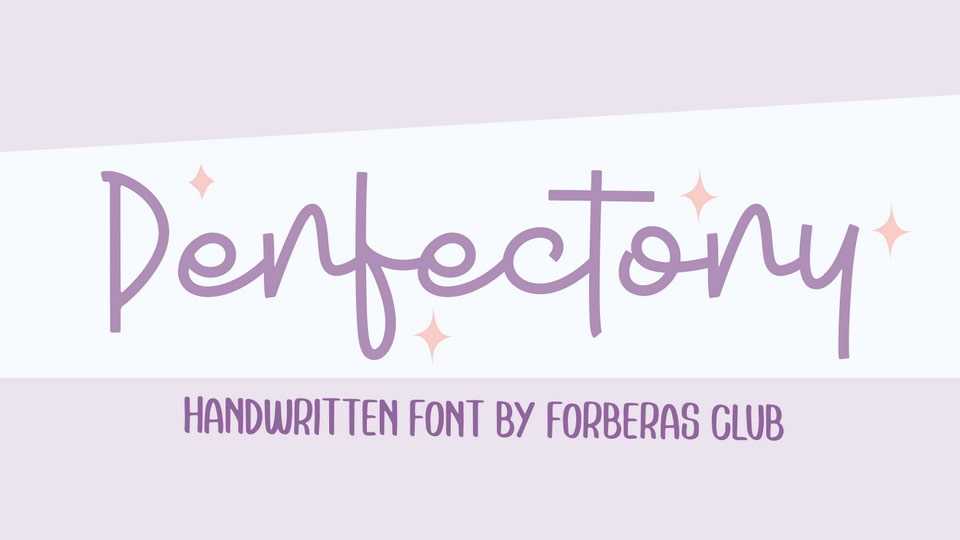
Download Perfectory font, a fancy and playful handcrafted font created to impress your audience and make your branding shine. Make your projects dance with this elegant and wonderful font wherever you use it.